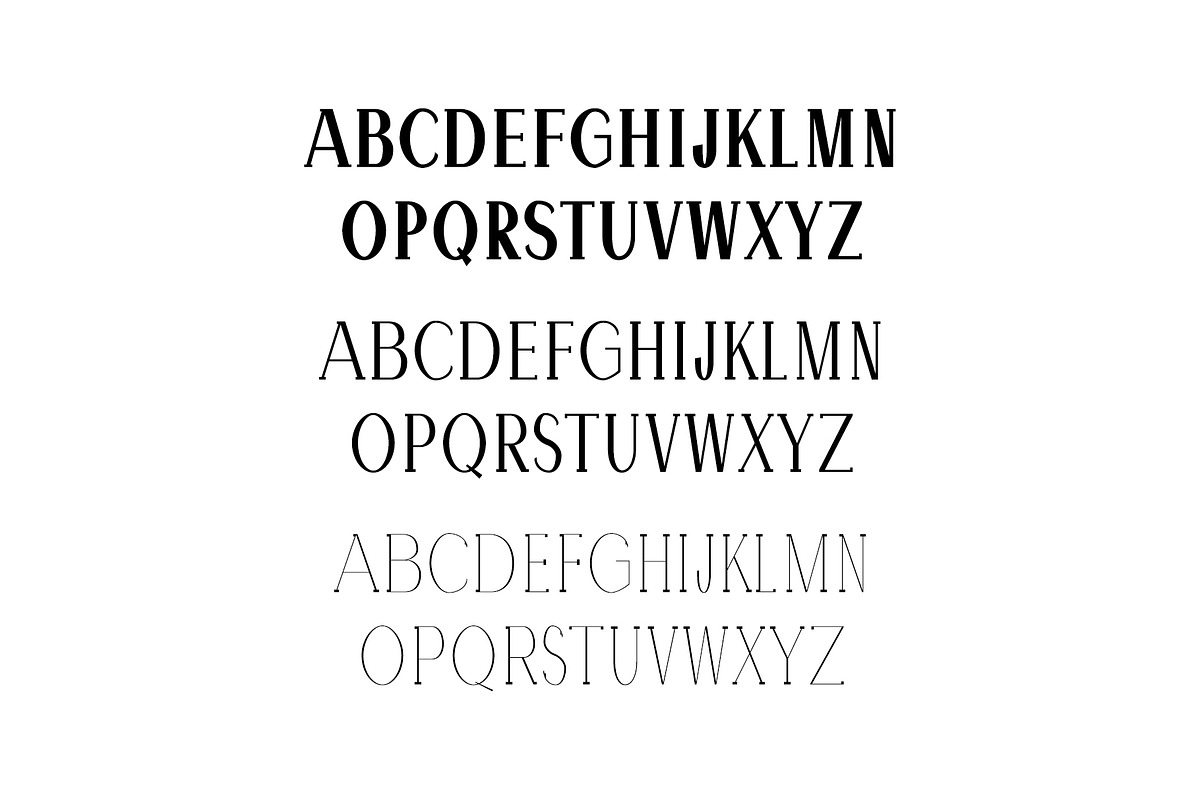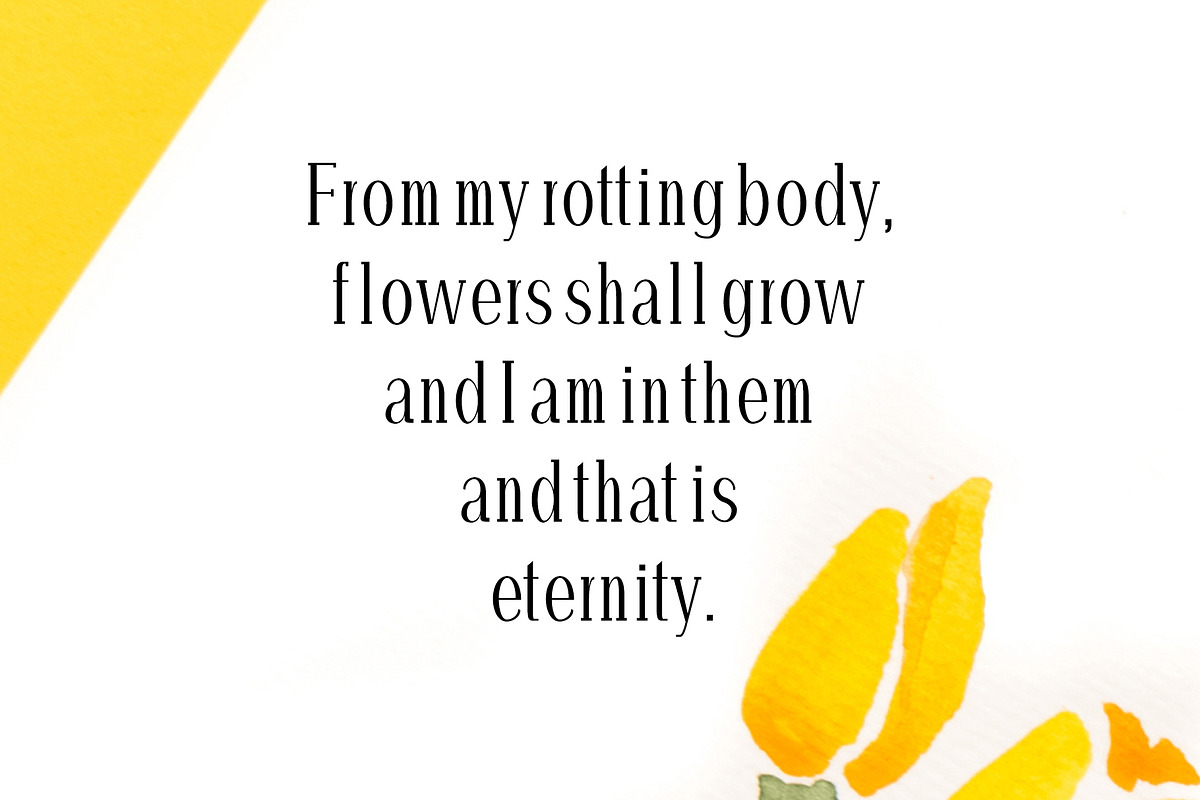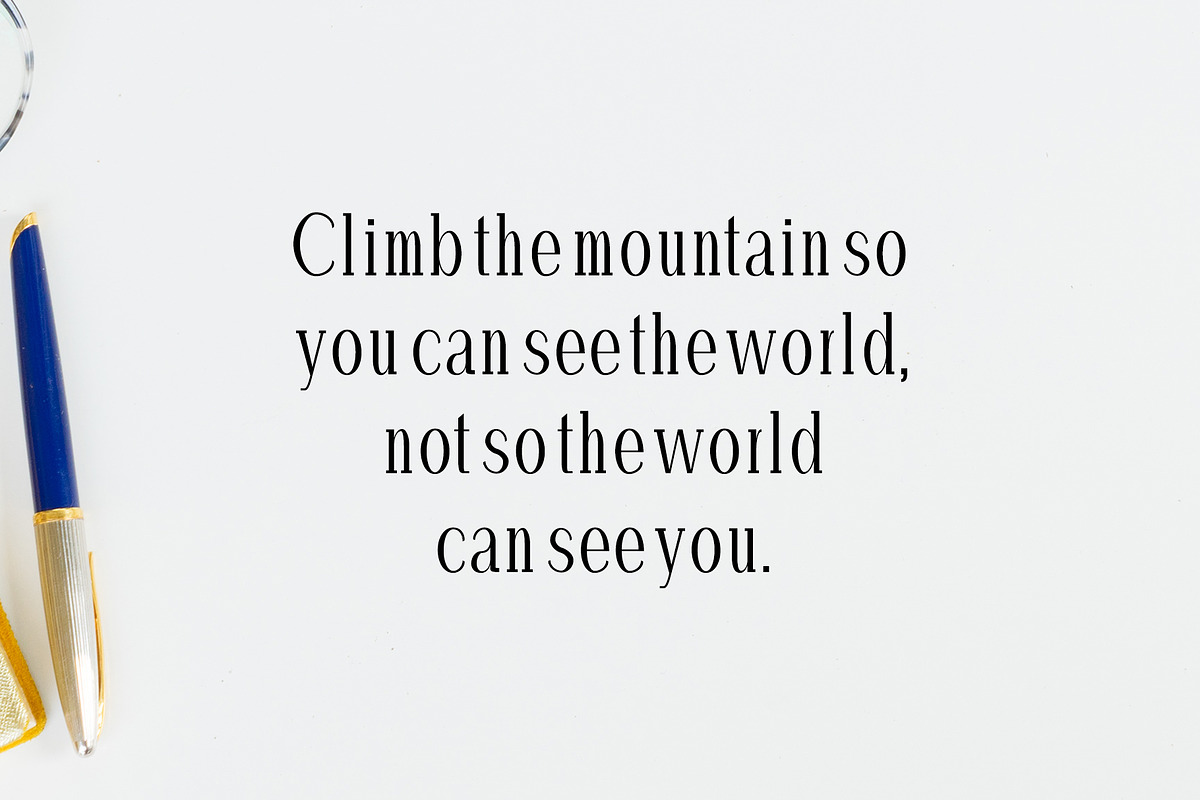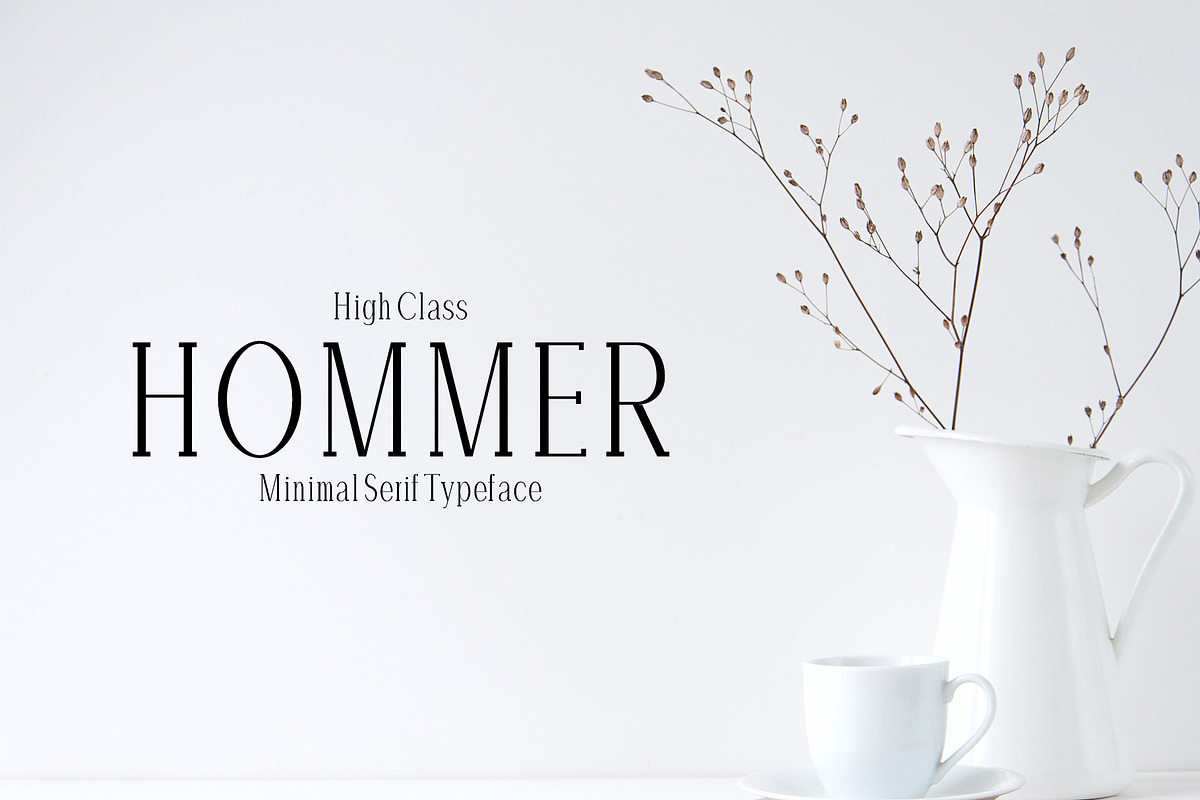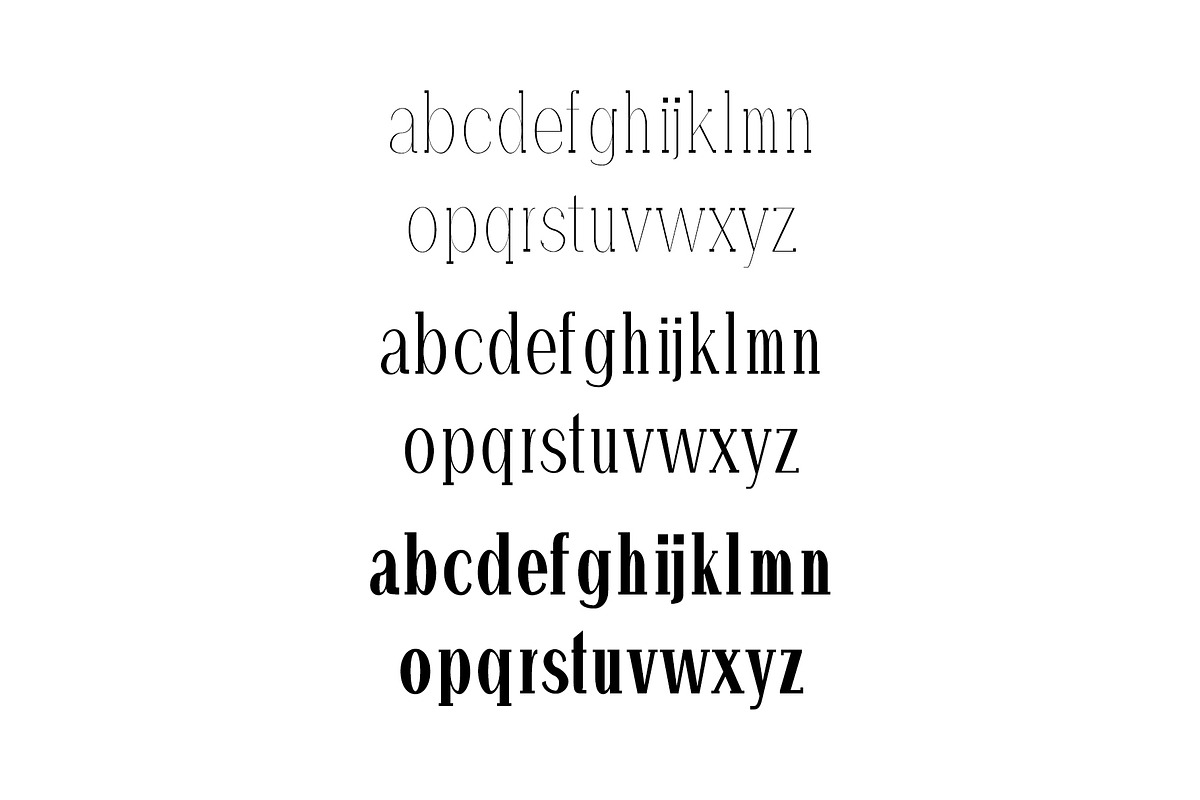
Hommer Minimal Serif Font Family
Hommer Minimal Serif Font Family by Creativetacos is a font selected for branding, posters, packaging, typography.
- Font Weight: Regular, Thin, Light, Outline, Bold and Extra Bold
Hommer Minimal Serif Font Family by Creativetacos fits naturally into Branding, posters, packaging, typography.